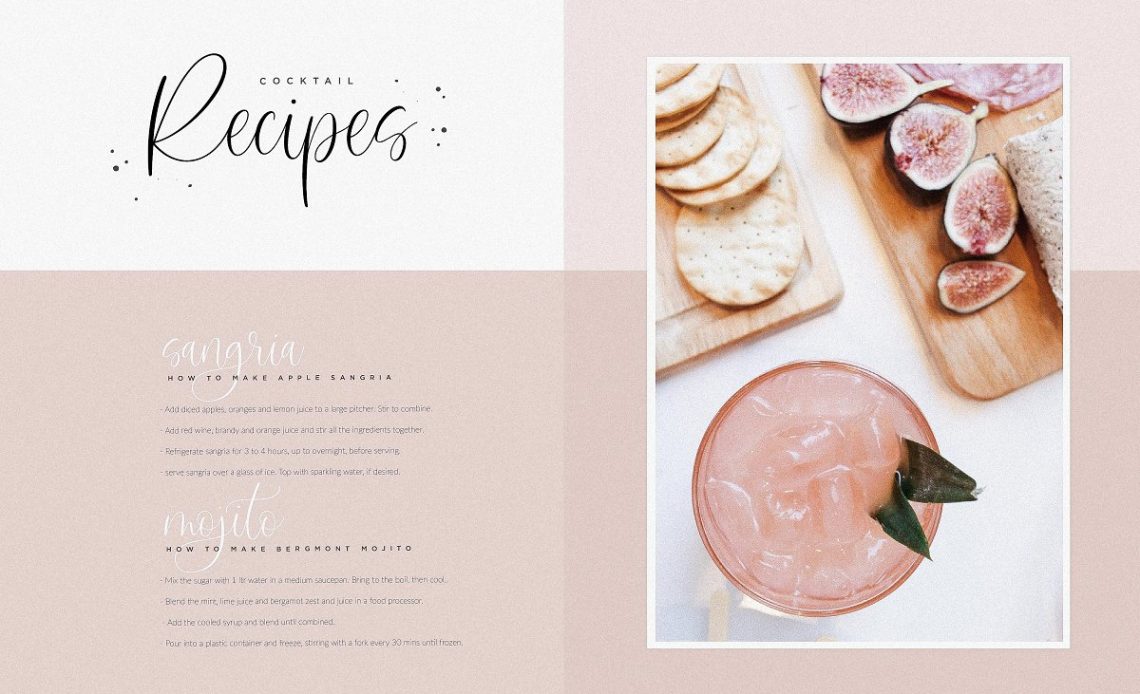
Introducing the lovely new Sangria Script Font, created by the talented Lindsay Catherine! This font is a must-have for anyone looking to elevate their designs and create a stunningly elegant logo. With its OpenType features, Sangria includes beginning and ending swashes, numbers, punctuation, alternates, ligatures, and multilingual support, making it a versatile choice for all your design needs.
In addition to the full font, Sangria also includes lowercase alternates and three swash sets, providing endless possibilities for customization. Installation is a breeze, as this font can be installed in all software that can read standard fonts. Don't have software that supports OpenType features? No problem! The supporting font files included in the download allow you to access all the ligatures, alternates, and swashes.
Create a professional, handwritten look for your designs with Sangria Script Font. Add it to your collection today!